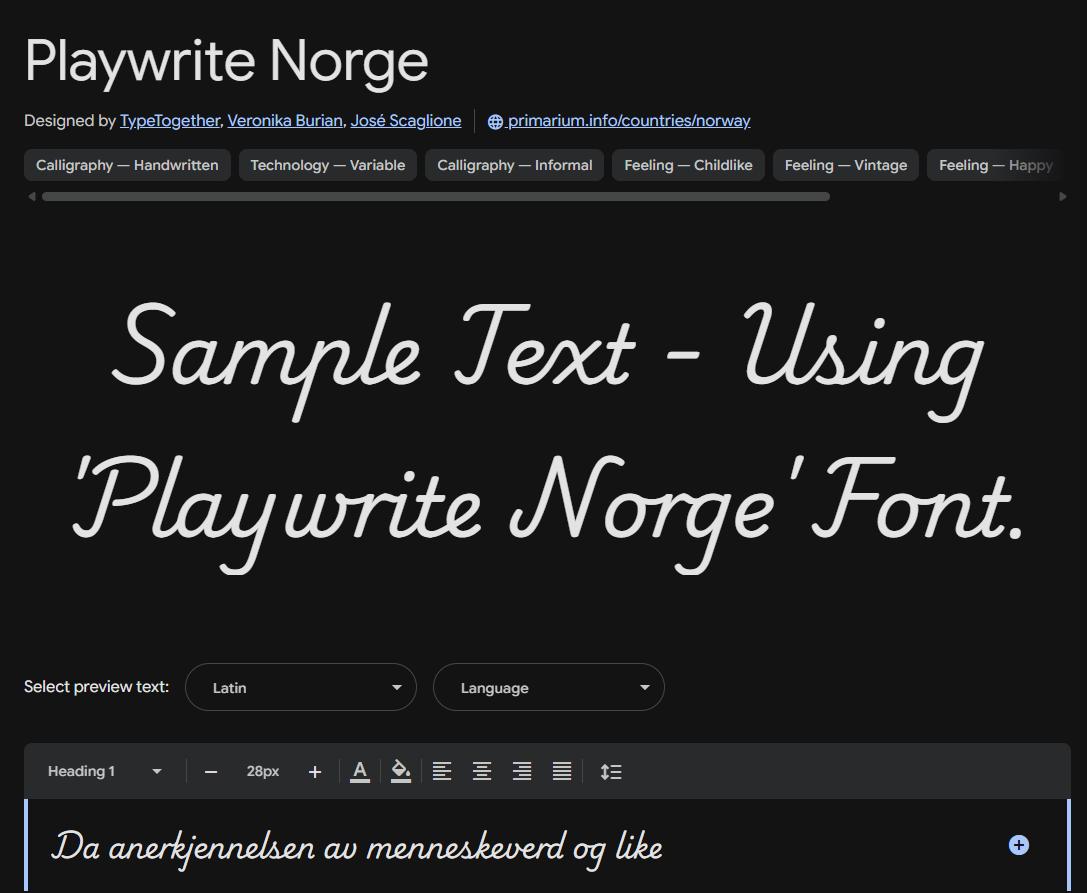
Playwrite Norge, a specialized pedagogical typeface engineered by TypeTogether's Veronika Burian and José Scaglione, revolutionizes educational script modeling through a single-axis variable font architecture that optimizes stroke weight interpolation for Norwegian primary-school standards. By integrating regional handwriting ductus with sophisticated OpenType programming, this typeface ensures seamless glyph transitions and rhythmic spacing, allowing for a scalable digital experience that preserves the anatomical integrity of traditional cursive forms. As a semantically robust tool within the broader Google Fonts Playwrite initiative, it utilizes its variable axis to provide precise typographic weight control, bridging the gap between manual penmanship instruction and modern screen-based literacy environments through high-fidelity character mapping and regionally specific letterform variants.
Playwrite Norge emerges as a sophisticated synthesis of pedagogical heritage and modern variable font technology, meticulously engineered to mirror the nuanced informal calligraphy of Norwegian primary education. This typeface transcends static digital outlines by leveraging a variable architecture that preserves the tactile, rugged texture of handwritten strokes, evoking a distinct vintage feeling that remains inherently happy and playful. By integrating industry-standard kerning tables and fluid axis interpolations, the font family balances a childlike aesthetic with robust semantic legibility, offering a unique perspective where the warmth of traditional school scripts meets the precision of contemporary CSS-integrated typography. Its design philosophy centers on the joy of early literacy, where the playful strokes and informal ligatures provide a welcoming, humanistic interface for learners navigating the intersection of tactile tradition and digital versatility.
While Playwrite Norge, meticulously engineered by Veronika Burian and José Scaglione of TypeTogether, serves as a premier variable solution for Norwegian pedagogical standards, its school-script morphology is fundamentally unsuitable for high-stakes technical environments such as avionics instrumentation or precision medical diagnostic interfaces. The typeface's inherent rhythmic flow and cursive joins, despite its single-axis weight variability, introduce complex ligature structures and fluid baseline tensions that compromise rapid-fire legibility and glanceability in high-stress scannability scenarios. Furthermore, its organic skeletal structure lacks the rigid geometric terminals and high x-height stability required for automated optical character recognition (OCR) systems in heavy industrial logistics, where the nuances of its localized glyph alternates could trigger critical interpretation errors in data-driven workflows that prioritize sterile, monolinear clarity over humanistic, educational aesthetics.
Playwrite Norge is primarily utilized in educational materials and creative designs that require an authentic, handwritten aesthetic. By adhering to the Norsk Standards for school script, the typeface provides a functional framework for developing digital pedagogical tools targeting Norwegian learners.
The font uses intelligent OpenType features to seamlessly join characters, mimicking the natural flow of human penmanship. Sophisticated contextual alternates ensure that the stroke exit points align dynamically based on the succeeding character's entry point, maintaining a consistent baseline rhythm.
While highly legible for short passages, the decorative nature of the cursive strokes may lead to visual fatigue in dense, multi-page documents. Quantitative readability studies suggest that script fonts with high x-height variability are better reserved for accentuation rather than sustained narrative blocks.
This script pairs effectively with clean sans-serif fonts to create a balanced contrast between organic and geometric forms. Utilizing a humanist sans-serif with a matching optical size helps maintain structural harmony while preventing the script from overwhelming the secondary information.
Yes, the font family includes full support for the extended Latin character set required for the Norwegian alphabet. The glyph coverage specifically includes pre-composed characters like the slashed O and the ash symbol, ensuring the diacritics maintain the same handwritten weight as the base letters.
The Norge variant reflects specific regional pedagogical traditions that dictate unique letter shapes and joinery styles distinct from the UK or US versions. Variations in the ascender height and the specific curl of the lowercase 'f' differentiate this regional subset from the more rigid verticality of the Playwrite Deutschland variants.
The typeface is generally better suited for friendly, informal, or educational branding rather than corporate or legal environments. Because it emphasizes a vernacular aesthetic, it serves brands aiming for authenticity and accessibility rather than those requiring a high-contrast serif for luxury positioning.
The font maintains its integrity across both platforms, though its thin strokes require careful attention to resolution in print. With a hinting system optimized for modern screens, the digital rendering remains crisp at lower DPI, whereas high-resolution printing captures the subtle variations in line thickness.
Playwrite Norge excels in display settings where its unique cursive flow can be appreciated at a larger scale. The vector paths are refined enough to avoid jagged edges when scaled, allowing the fluid strokes to function as a focal point in editorial headers.
This font family typically offers a range of weights from ExtraLight to Regular to provide flexibility in layout design. Leveraging the variable font technology allows designers to fine-tune the weight axis precisely, ensuring that headlines and sub-headers maintain distinct visual weight without losing script legibility.